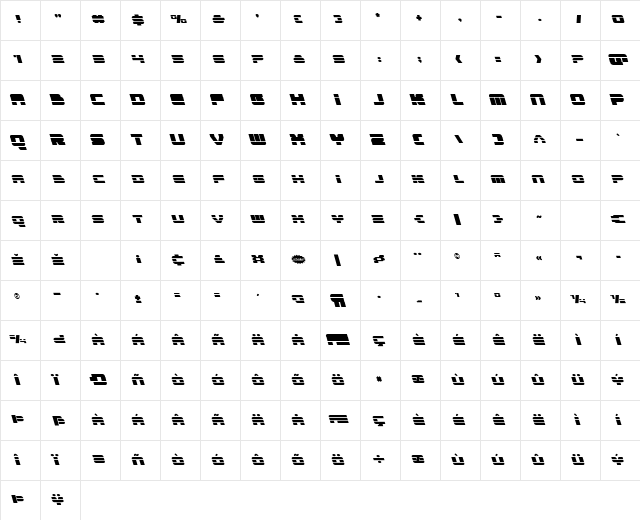
Quicken Leftalic Italic
Design Context for Quicken Leftalic
Quicken Leftalic is a composed and adaptable typeface that performs quietly and consistently across a wide range of design contexts. The slanted form adds forward momentum and visual energy.
Pro Tip: Use Quicken Leftalic for emphasis, pull quotes, and subheadings where its slanted energy can add rhythm to the layout.